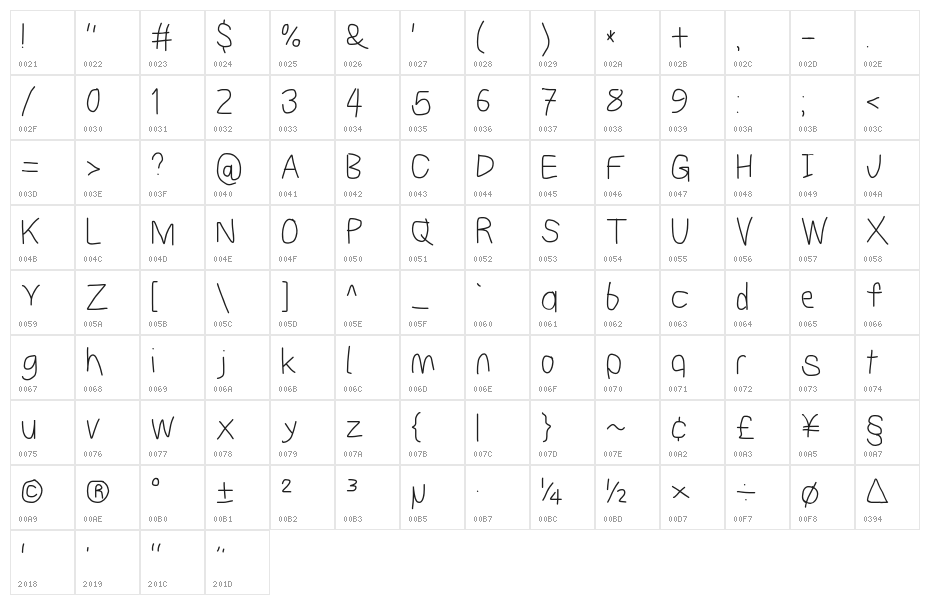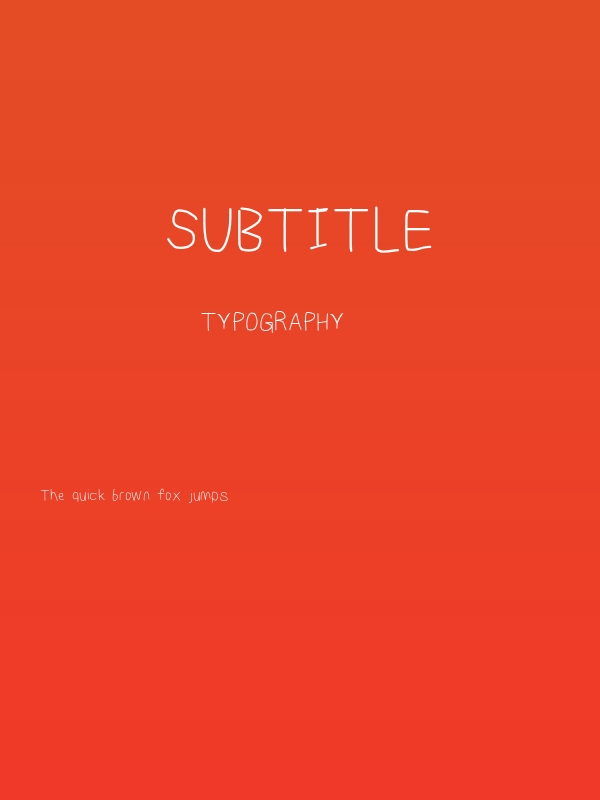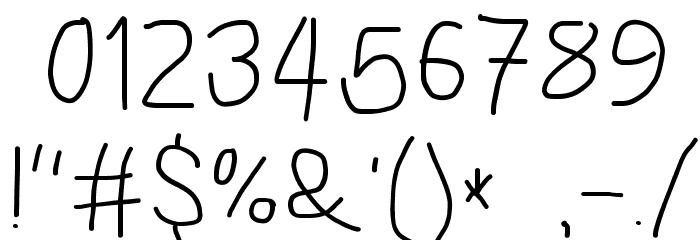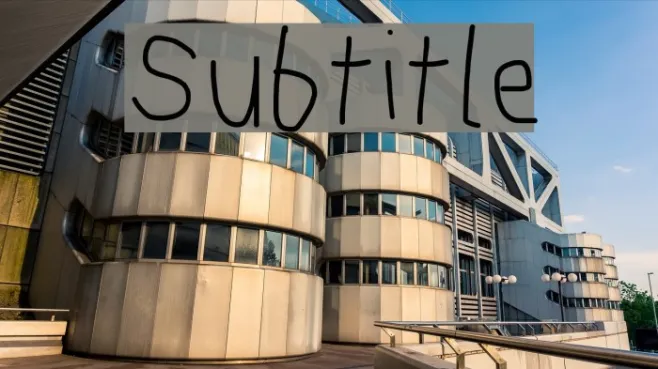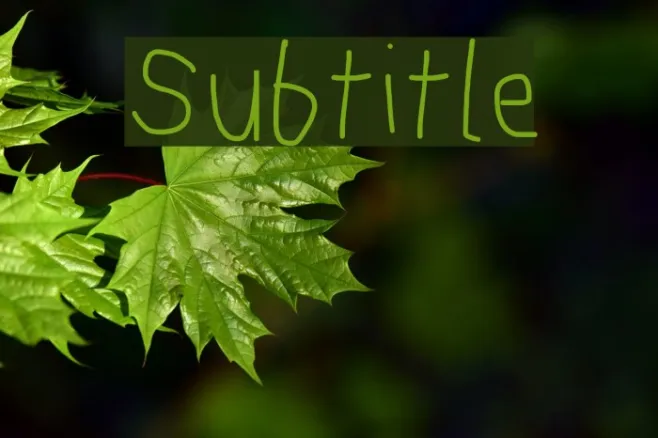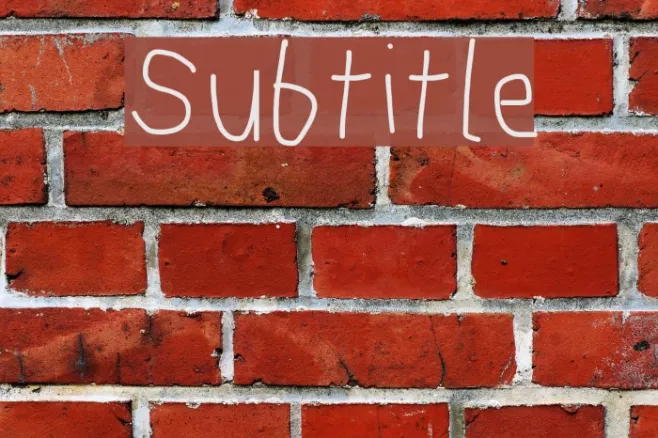
Subtitle Font
Subtitle Description
This font features a playful, handwritten style that exudes a casual and friendly vibe. The characters are slightly irregular, adding a personal touch reminiscent of a child's handwriting or a casual note. The strokes are consistent in thickness, providing a uniform appearance across all letters and numbers. The uppercase and lowercase letters maintain a cohesive look, with rounded edges and a slight tilt that enhances the informal aesthetic. The numerals are clear and easy to read, matching the overall style of the alphabet. Special characters are included, maintaining the same playful and approachable design.
| Use Case | Headlines, Informal text, Branding |
| Proposed Projects | Ideal for children's books, casual invitations, personal notes, and playful branding. |